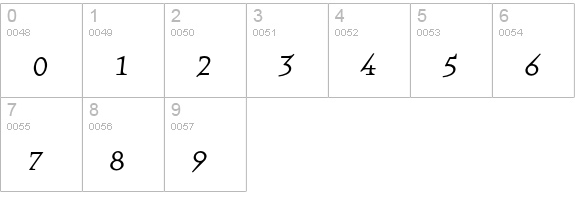
QuartetFractionsRegular Font Details
QuartetFractionsRegular font is a beautiful and versatile typeface that adds a touch of elegance and sophistication to any design project. With its clean lines and classic proportions, this font is perfect for both print and digital applications. The QuartetFractionsRegular font features a unique combination of modern and traditional elements, making it suitable for a wide range of uses. Whether you're creating a logo, designing a website, or working on a branding project, this font will elevate your design to new heights. One of the standout features of QuartetFractionsRegular font is its extensive range of fractions. This makes it ideal for projects that require precision and attention to detail, such as typesetting mathematical equations or creating professional documents. What sets QuartetFractionsRegular font apart is that it is free to download. You can easily access this font and start using it in your design projects, without any restrictions or obligations. Simply visit FontsMarket.com and add this font to your collection. With QuartetFractionsRegular font, you can bring a touch of elegance and sophistication to your designs, without breaking the bank. Its freely available nature makes it accessible to designers of all levels, from beginners to professionals. So, whether you're working on a personal project or a client's brief, QuartetFractionsRegular font is the perfect choice. Its versatility, beauty, and availability make it a valuable addition to any designer's toolkit. Download it today from FontsMarket.com and see the difference it can make in your designs.